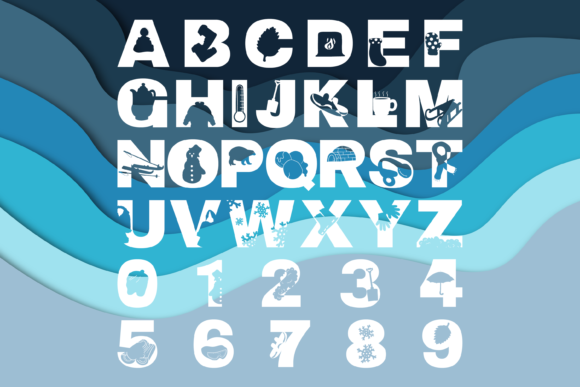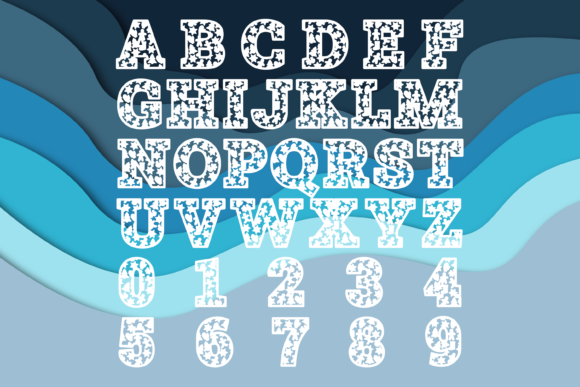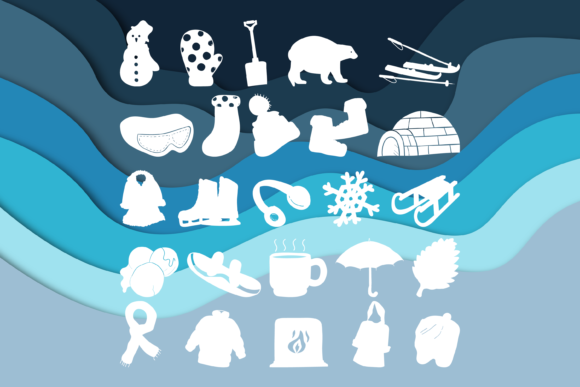
Introduction to Frosty Snowman Trio Font
Frosty Snowman Trio is an incredibly cool font (sans serif, serif, and dingbats).
Whether you use it for cartoon-related designs, children games, or just any creation that requires a lovely touch, this font will be an amazing choice .
Key Features of Frosty Snowman Trio Font
Why Choose Frosty Snowman Trio Font?
Frosty Snowman Trio Font offers exceptional quality and versatility, making it a valuable addition to your design toolkit. Whether you’re creating for personal projects or commercial use, Frosty Snowman Trio Font delivers professional results.